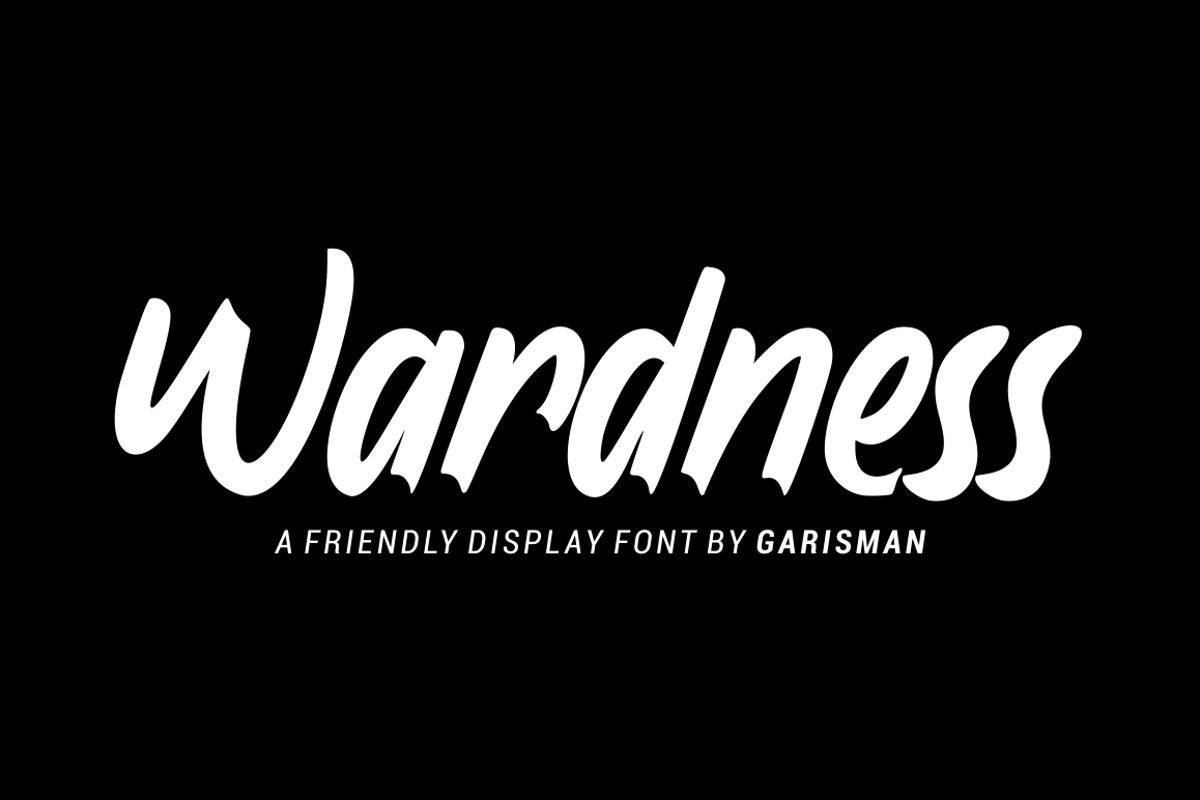
Wardness - Display Font
Wardness
Introducing Wardness - Display FontWardness combines attractive curves with a fresh urban edge; delivering a stylish script which is guaranteed to add an eye-catching appeal to your logo designs, brand imagery, quotes, product packaging, merchandise & social media postsFeatures: